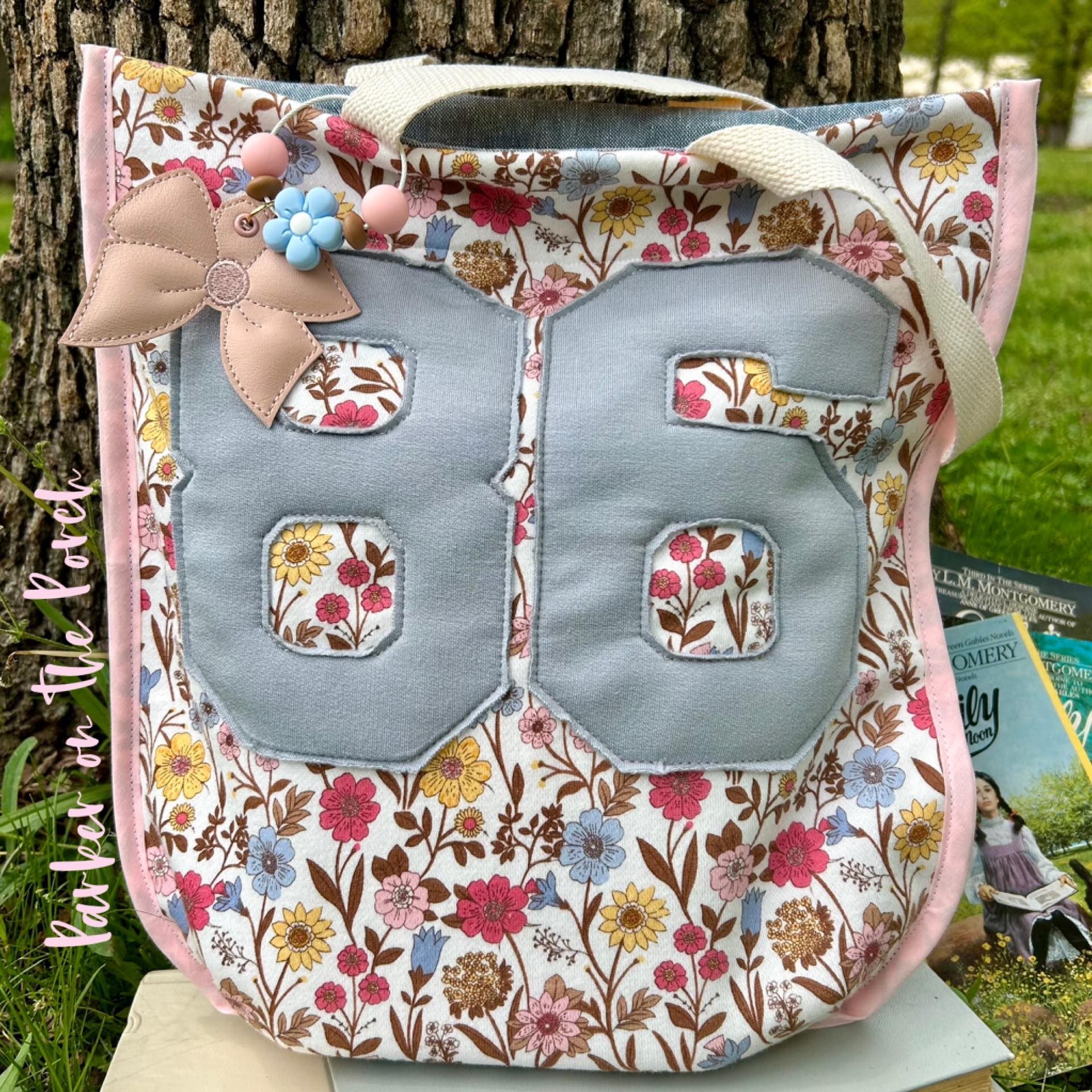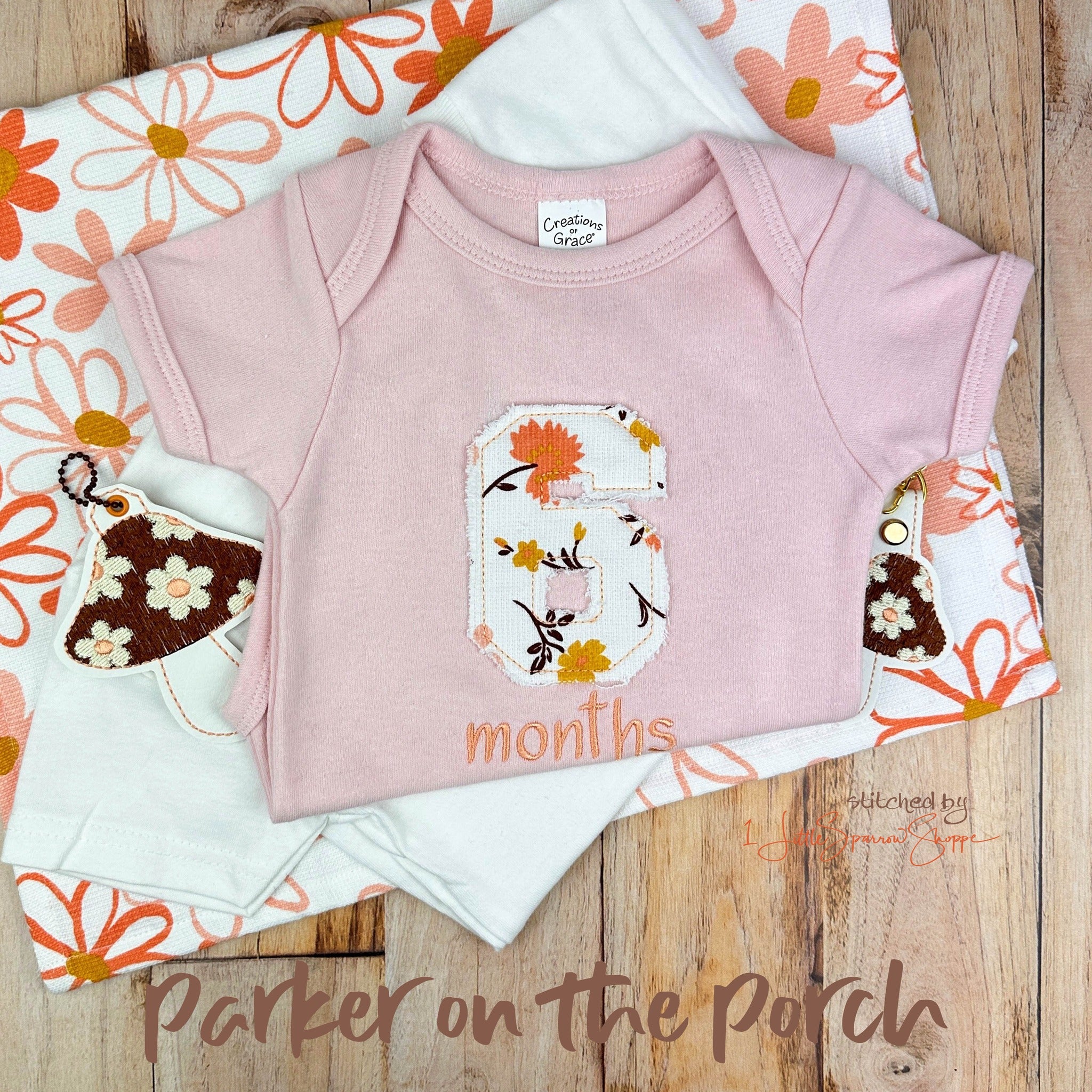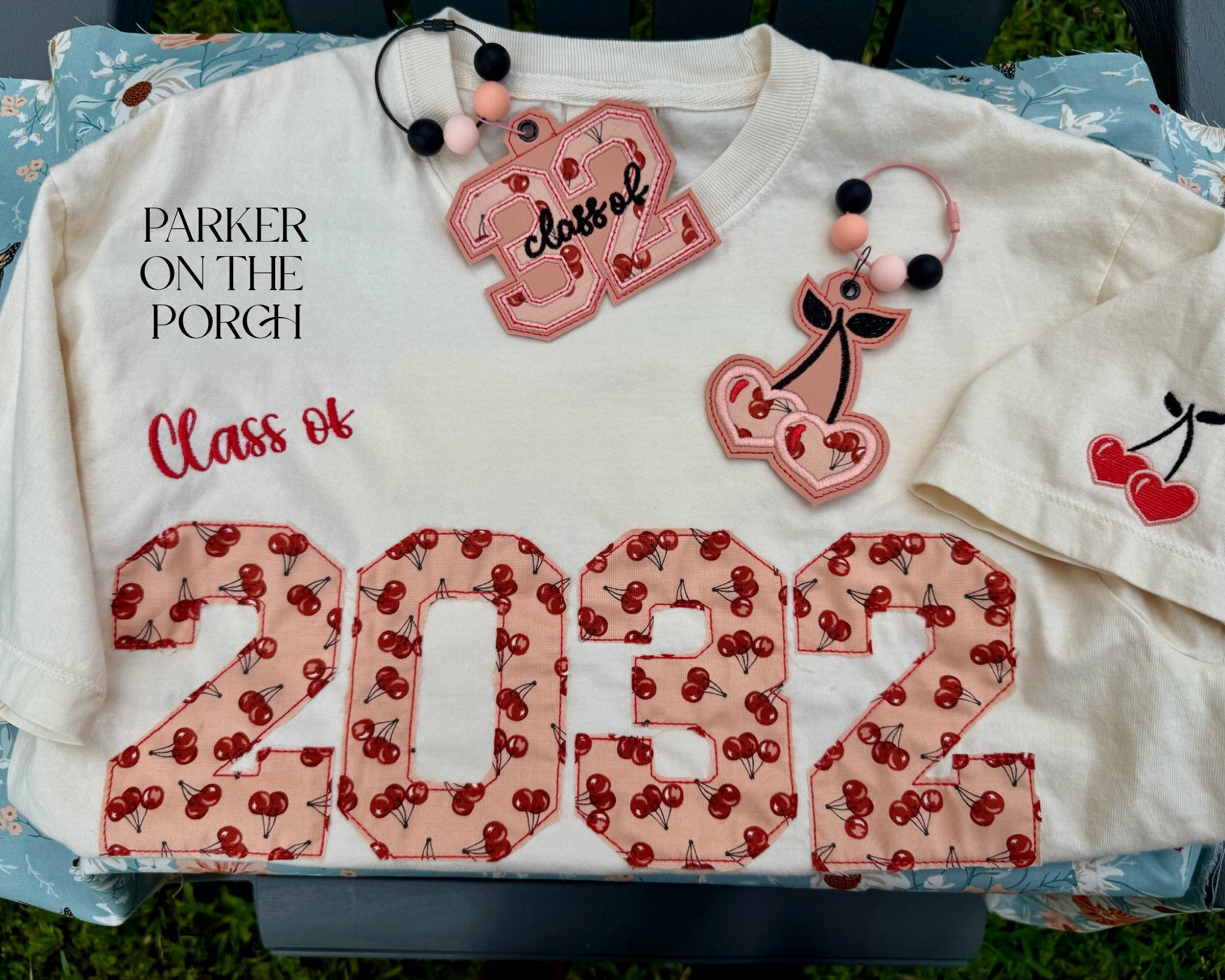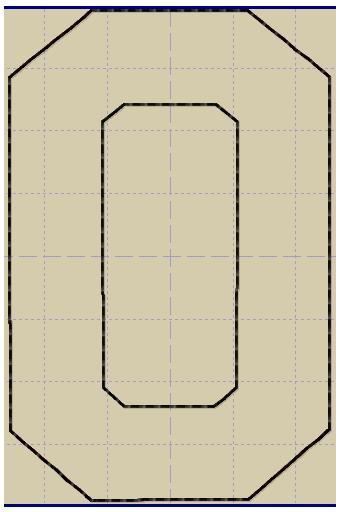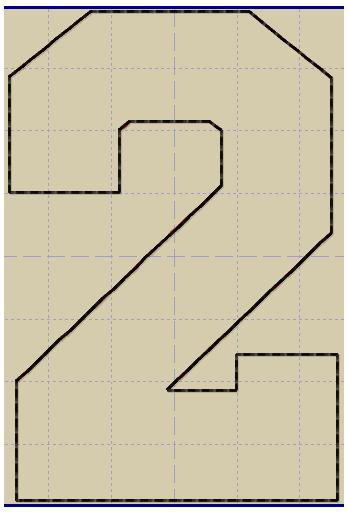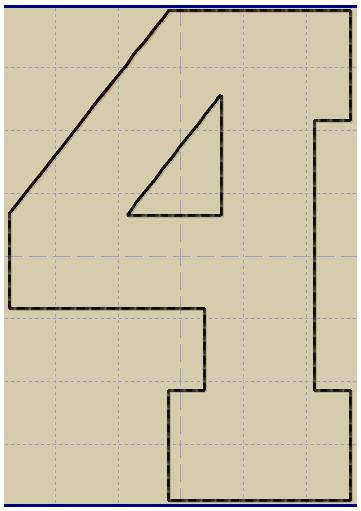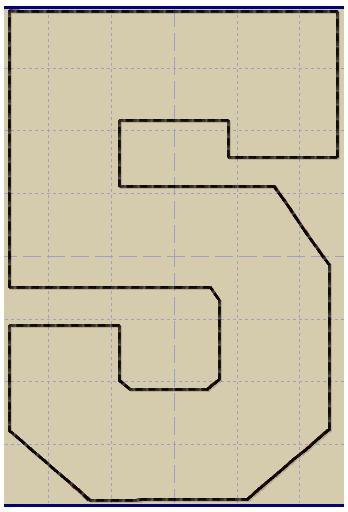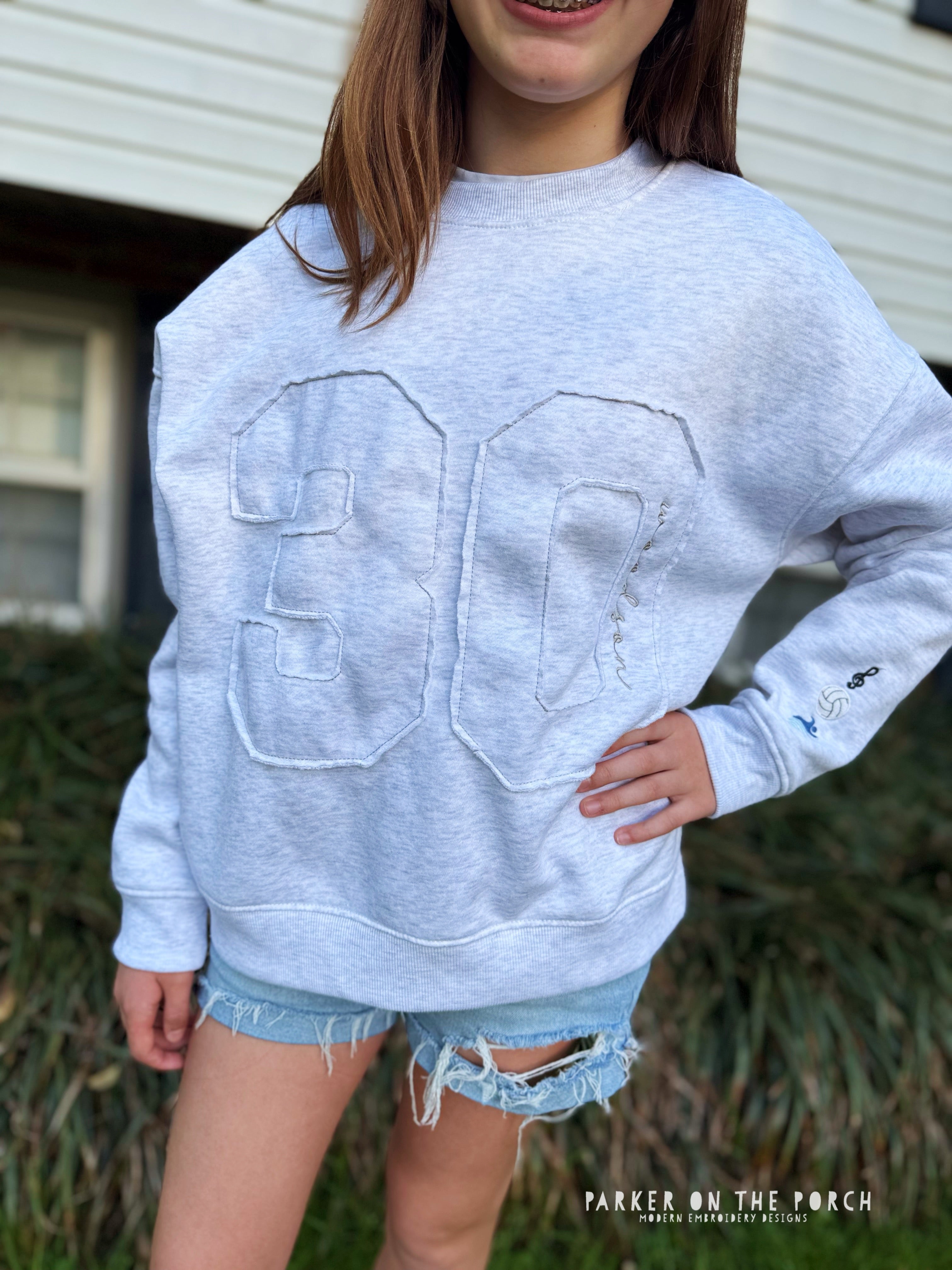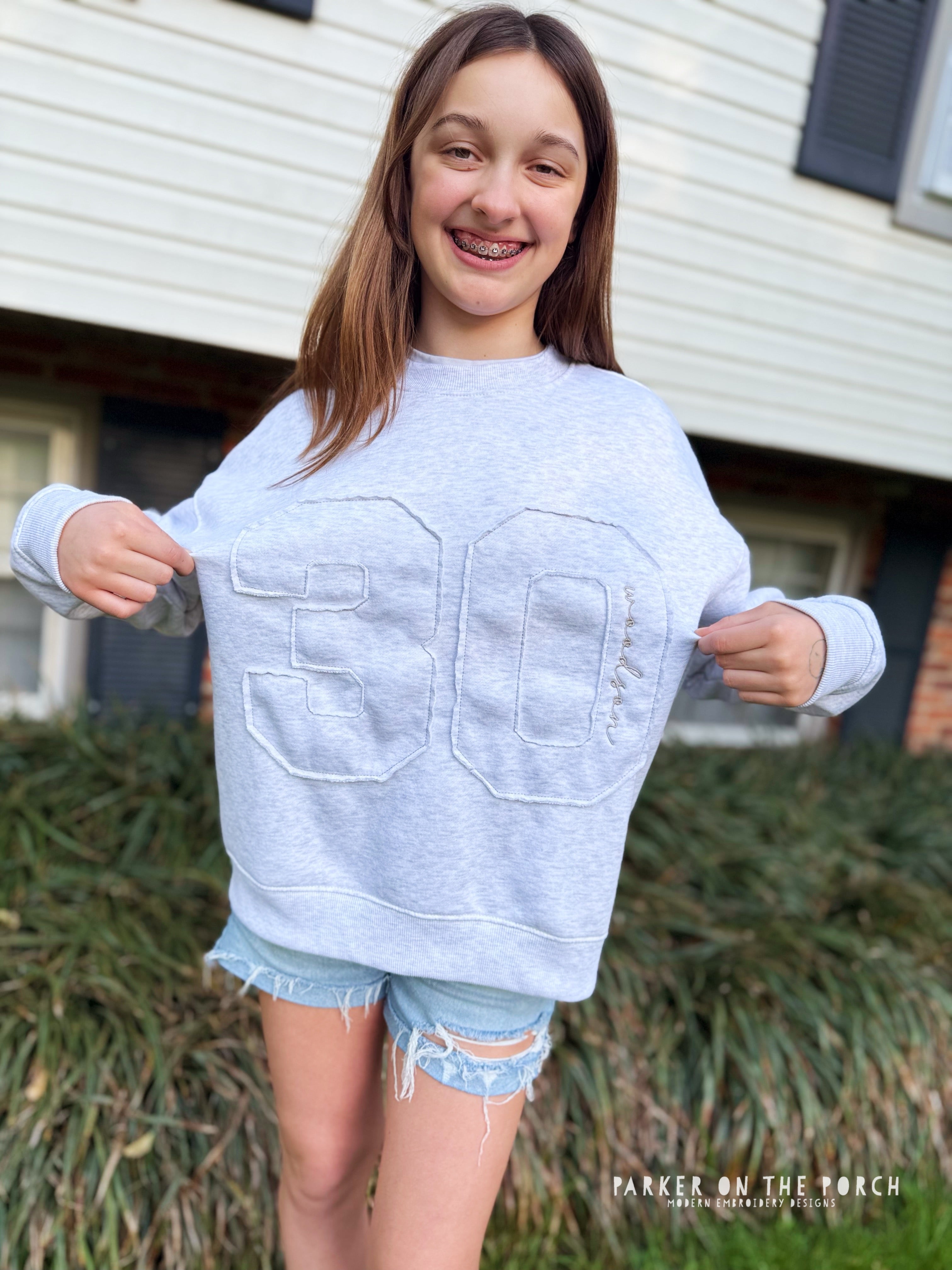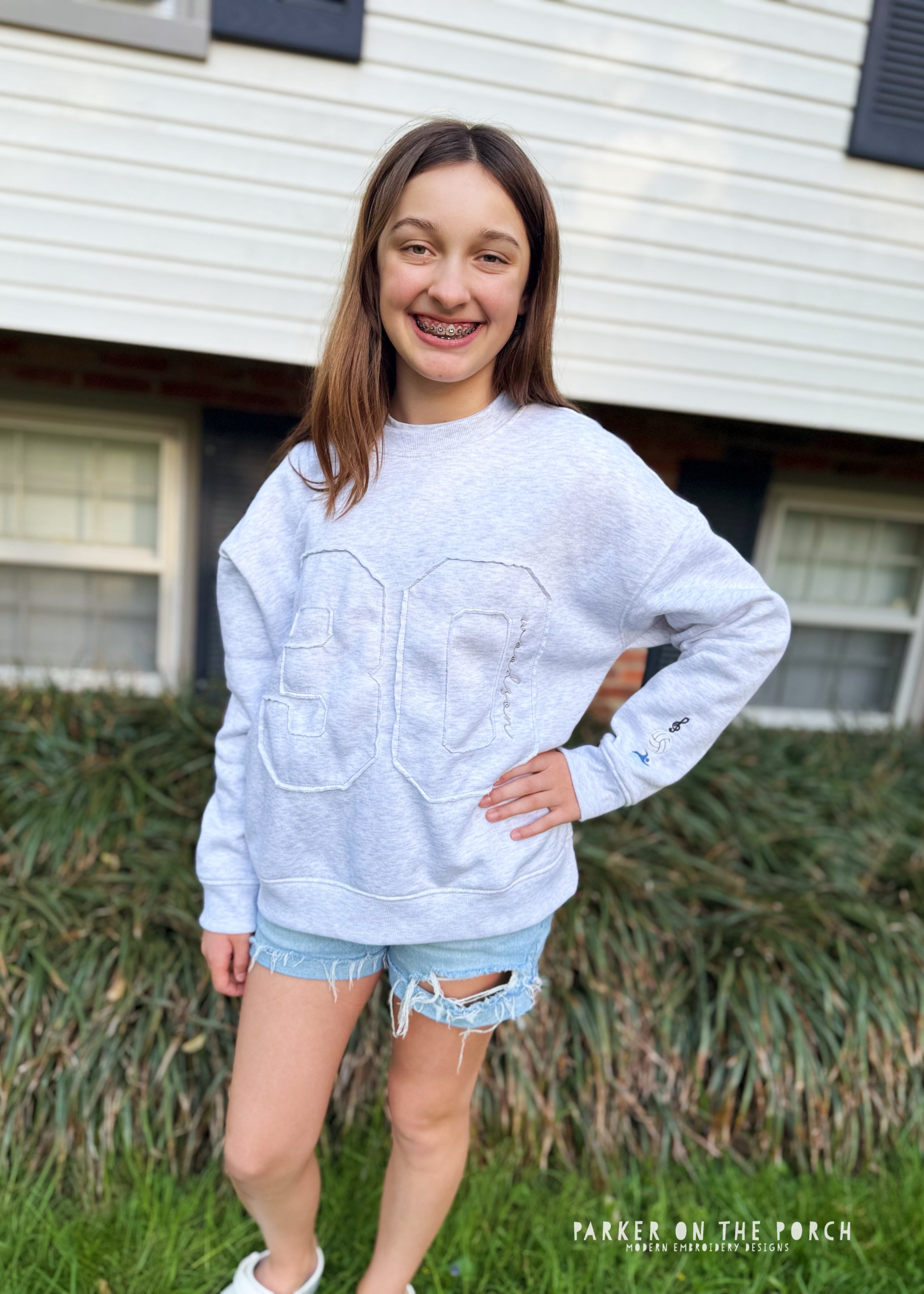
Digital Download- Shabby Applique Font- Squad Numbers (0-9)
• 1 Applique Design font in 7 sizes - Squad Numbers (0-9)
• Applique is a shabby bean finish
• Size is based on height of the number.  Sizes 4" 5" 6" 7" 8' 9" and 10" are all included